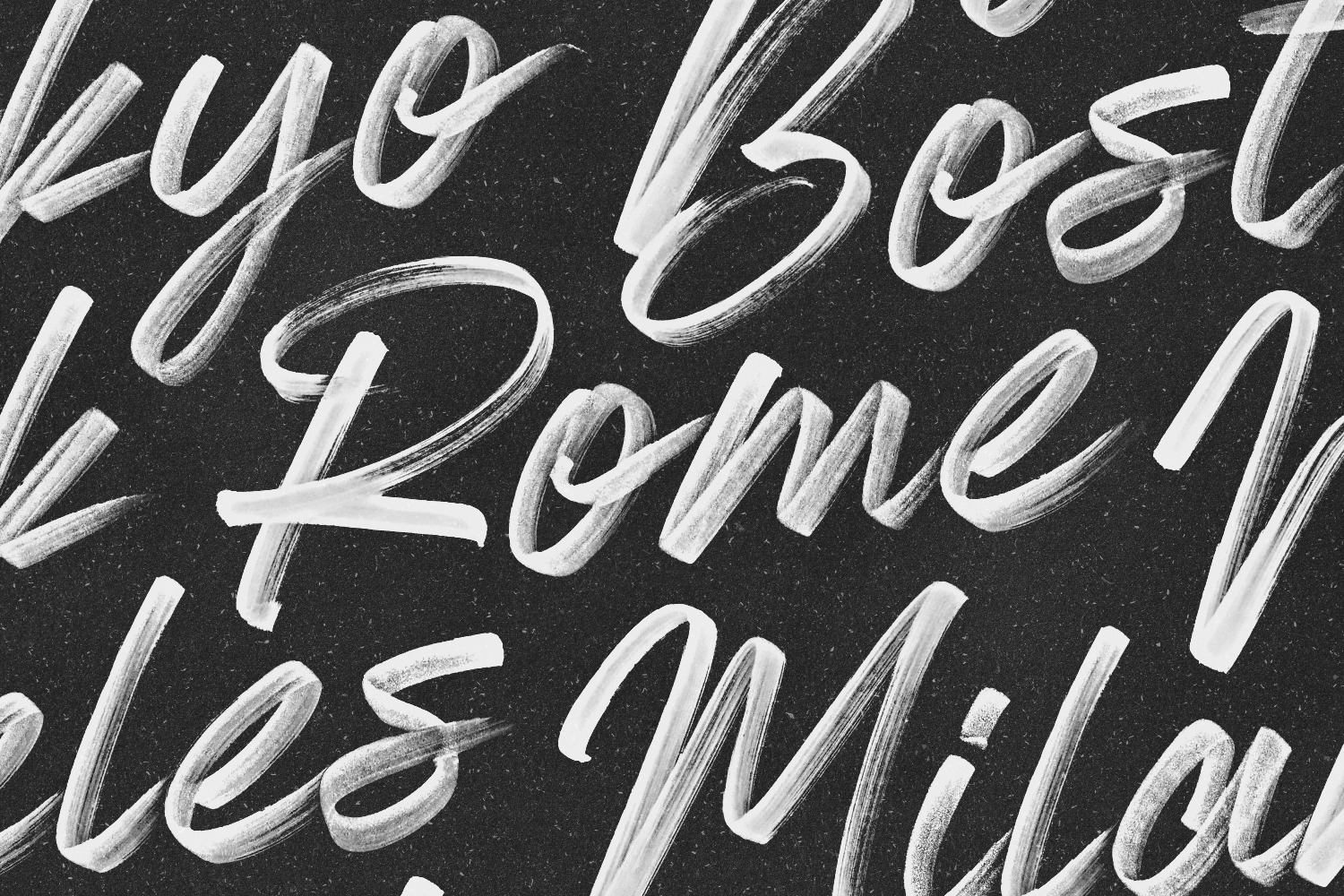
Almonte goes above and beyond a typical font. Using OpenType-SVG technology, this font preserves all the high definition detail of the original handwritten letters. It truly looks realistic, and the difference compared to regular vector fonts is staggering. In an instant, you can produce eye catching text that looks like it was meticulously drawn by a professional hand letterer. I spent several months perfecting this font to get everything just right.
So how does it work? Instead of vectorizing the letters, I invented a method that uses transparency effects in order to get the quality that you see. This is all made possible thanks to the latest developments of the OpenType-SVG format, and the integration of that technology into Photoshop. Almonte installs like any other font, and can be used in any color, on any background. Check out the example video to see everything this font can do!
Regular Font (TTF/OTF) - This is the same font, but a vectorized version, so the texture will look different. This is a great traditional option for use in other programs, including earlier versions of Photoshop. This version is also great for blocks of text and small print.
Brushes - Each character in the OpenType-SVG font is also available as a brush. These brushes are great for users who cannot use the OpenType-SVG font, but want to get the exact same end results.
Swash Brushes - We’ve also included a bunch of underlines to help spice up your designs.